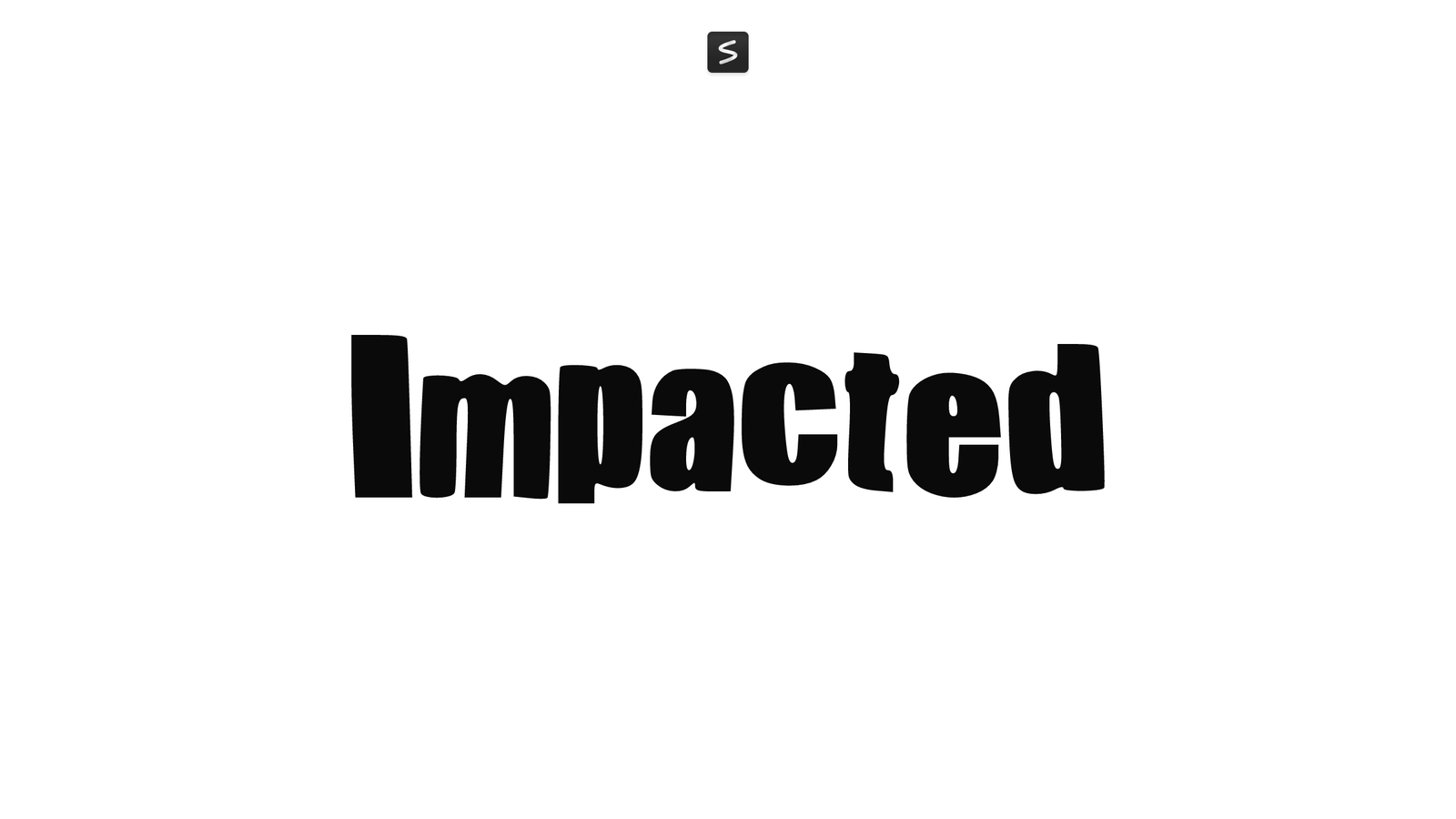
Impacted is a distorted display font designed by Harrison that warps and compresses letterforms in a way that feels intentionally collapsed or pressurized. The characters have an exaggerated, squeezed quality that gives them visual weight and impact, making them stand out immediately on a page or screen.
The font works well for headlines, posters, and any design that benefits from a bold, attention-grabbing presence. Its distorted nature means readability drops at small sizes, but at display scales it delivers personality and edge. It’s a solid choice for album covers, event announcements, graffiti-style graphics, or anywhere a designer wants text that feels deliberately broken or compressed.